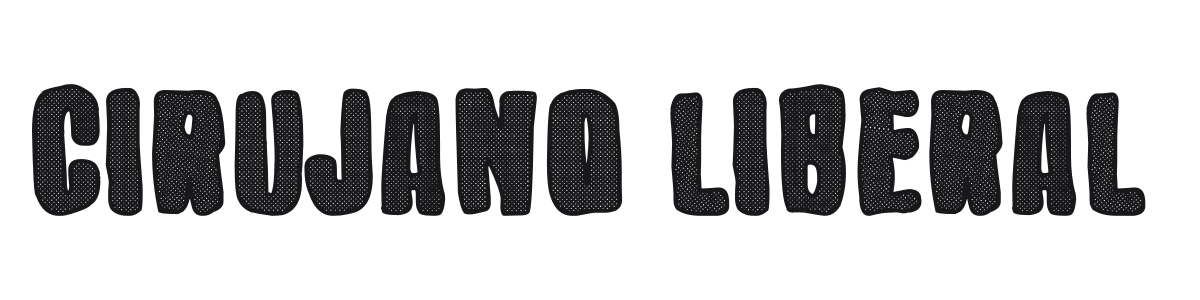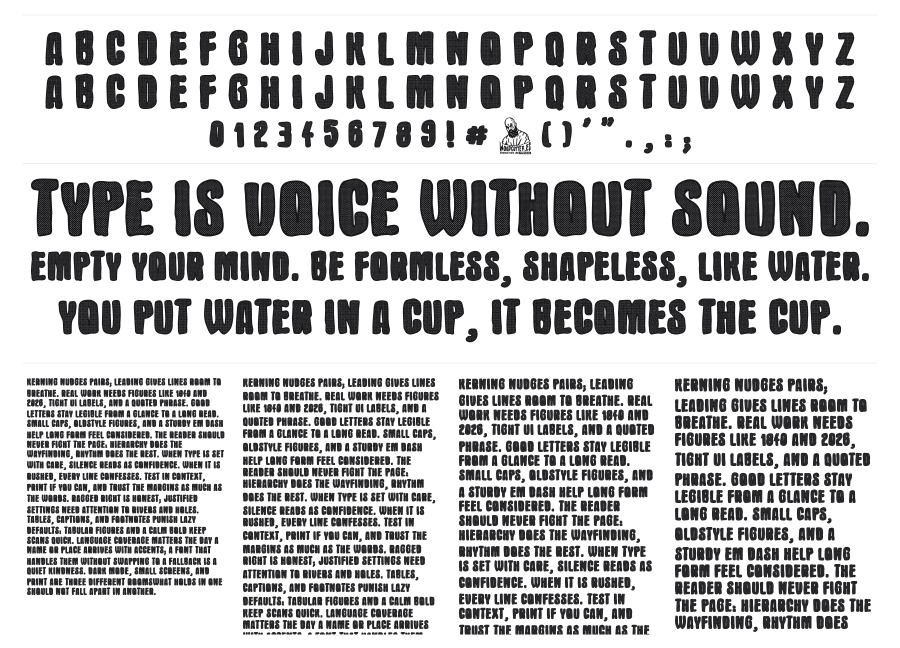
Cirujano Liberal
Cirujano Liberal is a heavy rounded display font by Woodcutter Manero with a coarse fabric or halftone texture baked into every character. The result looks like ink pressed through a screen or mesh, giving it a raw, tactile quality that sits between street-art poster and retro print. It works best large, where the texture reads clearly.